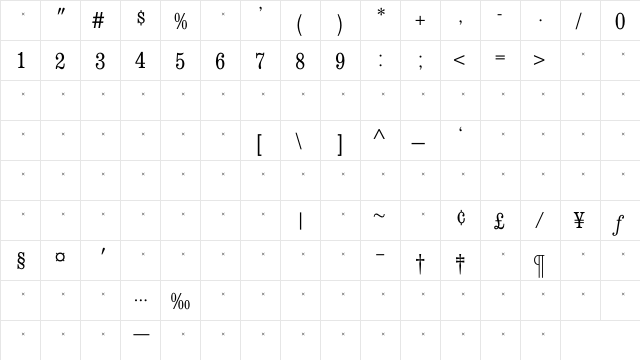
ConsortLightCondensedTab Regular Font Preview
Design Context for ConsortLightCondensedTab Typeface
ConsortLightCondensedTab offers clean, dependable letterforms without strong stylistic allegiance, making it a practical choice for designers who need flexibility. The delicate stroke weight brings airiness and refinement to layouts. The condensed width makes it efficient for tight spaces without sacrificing legibility.